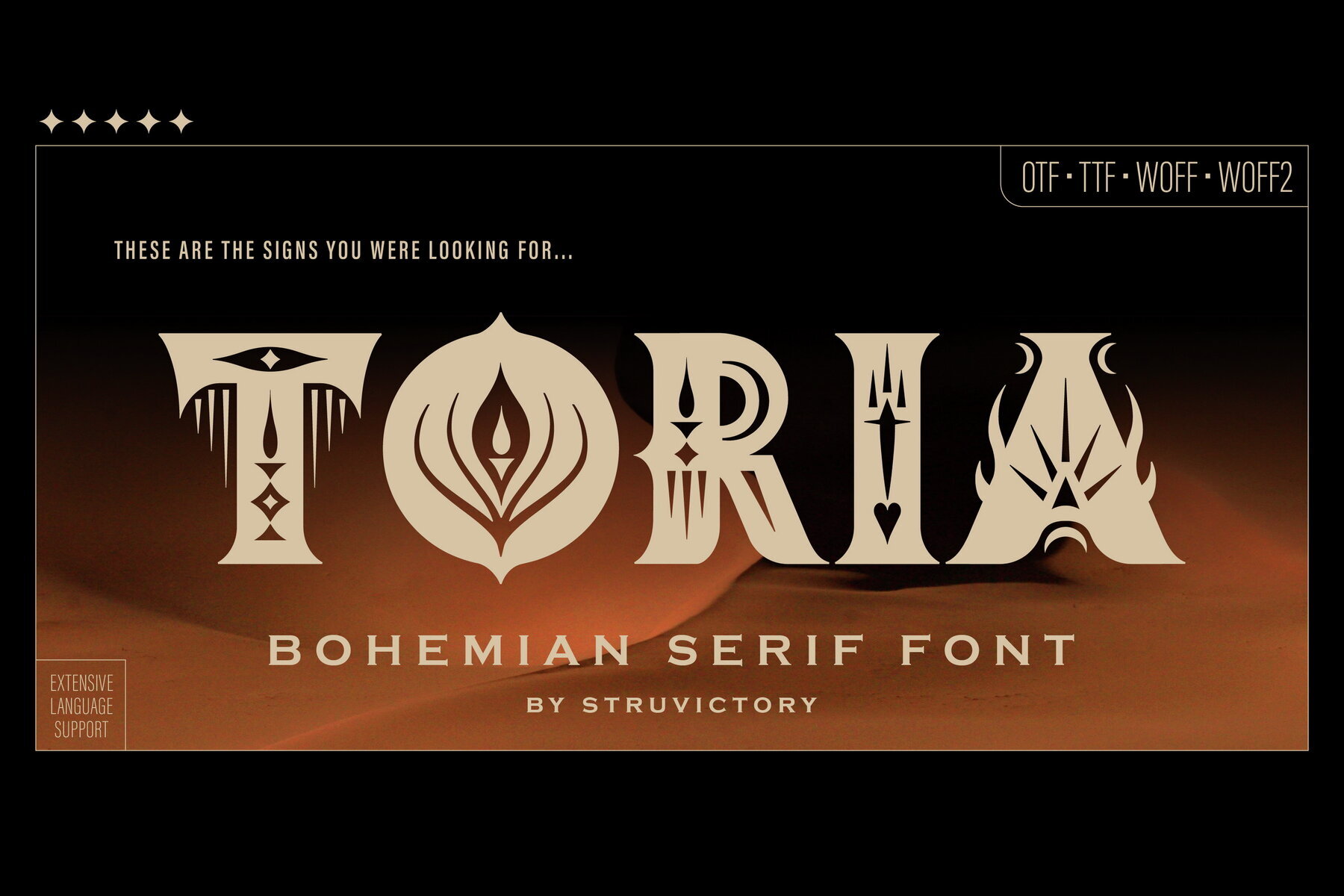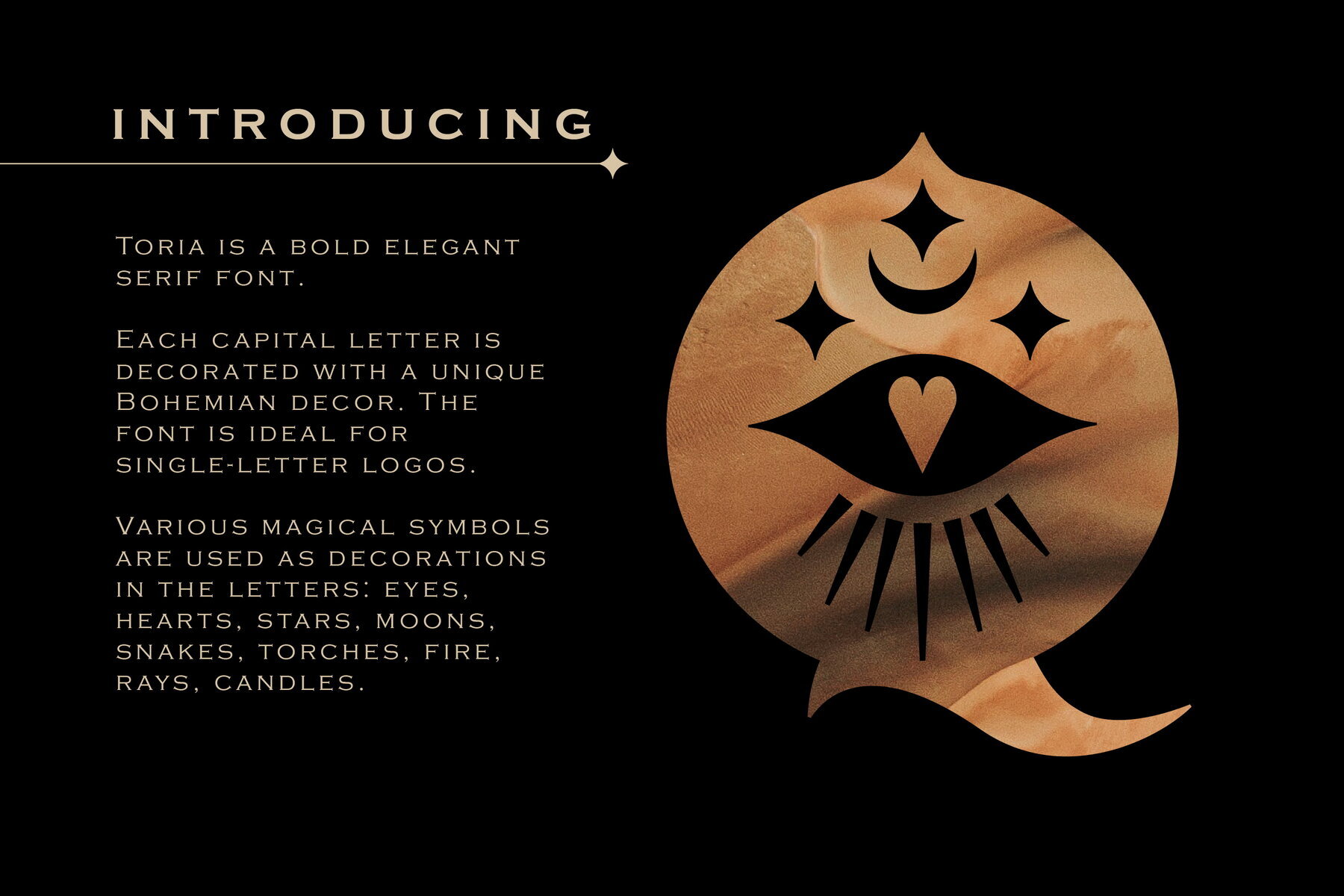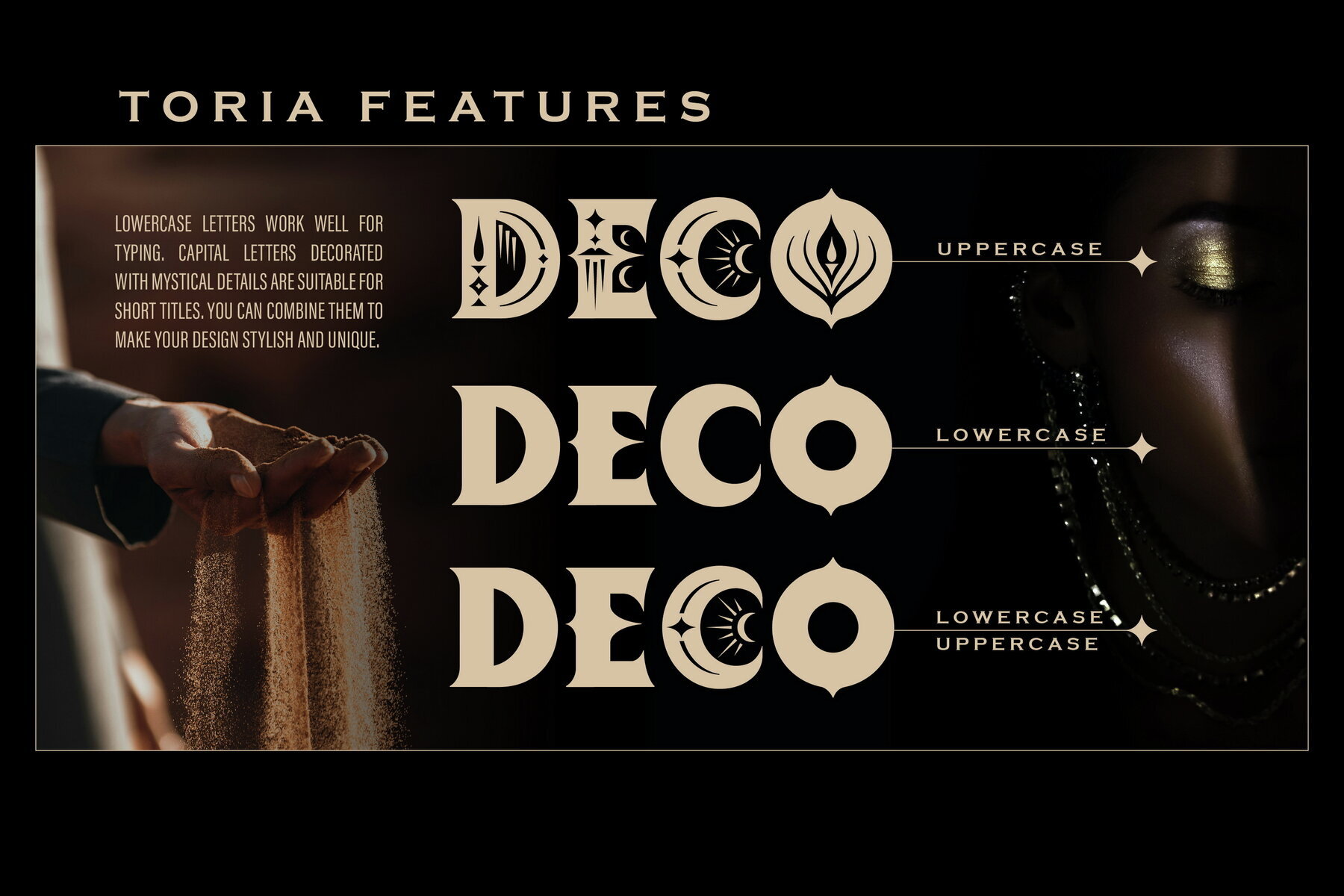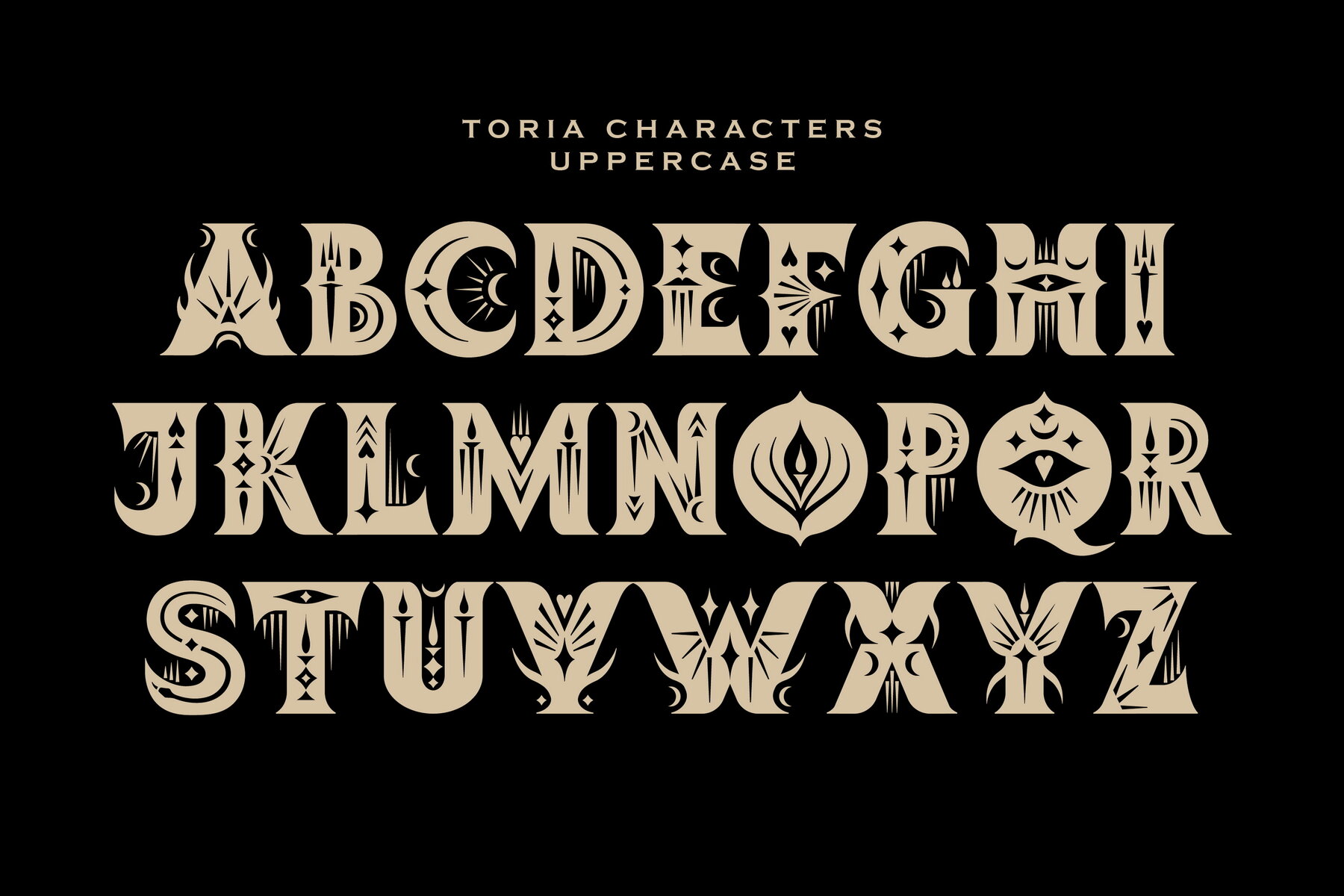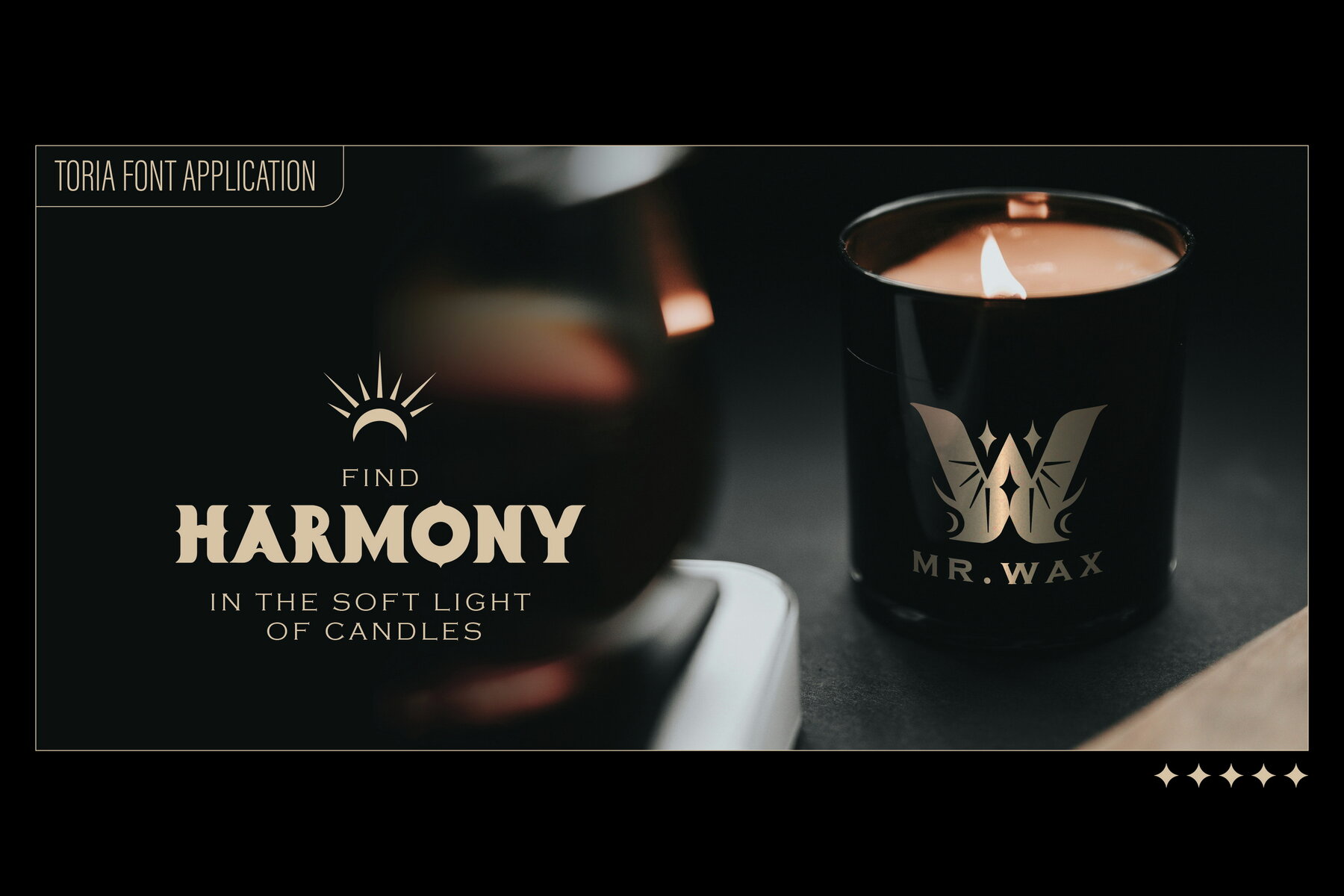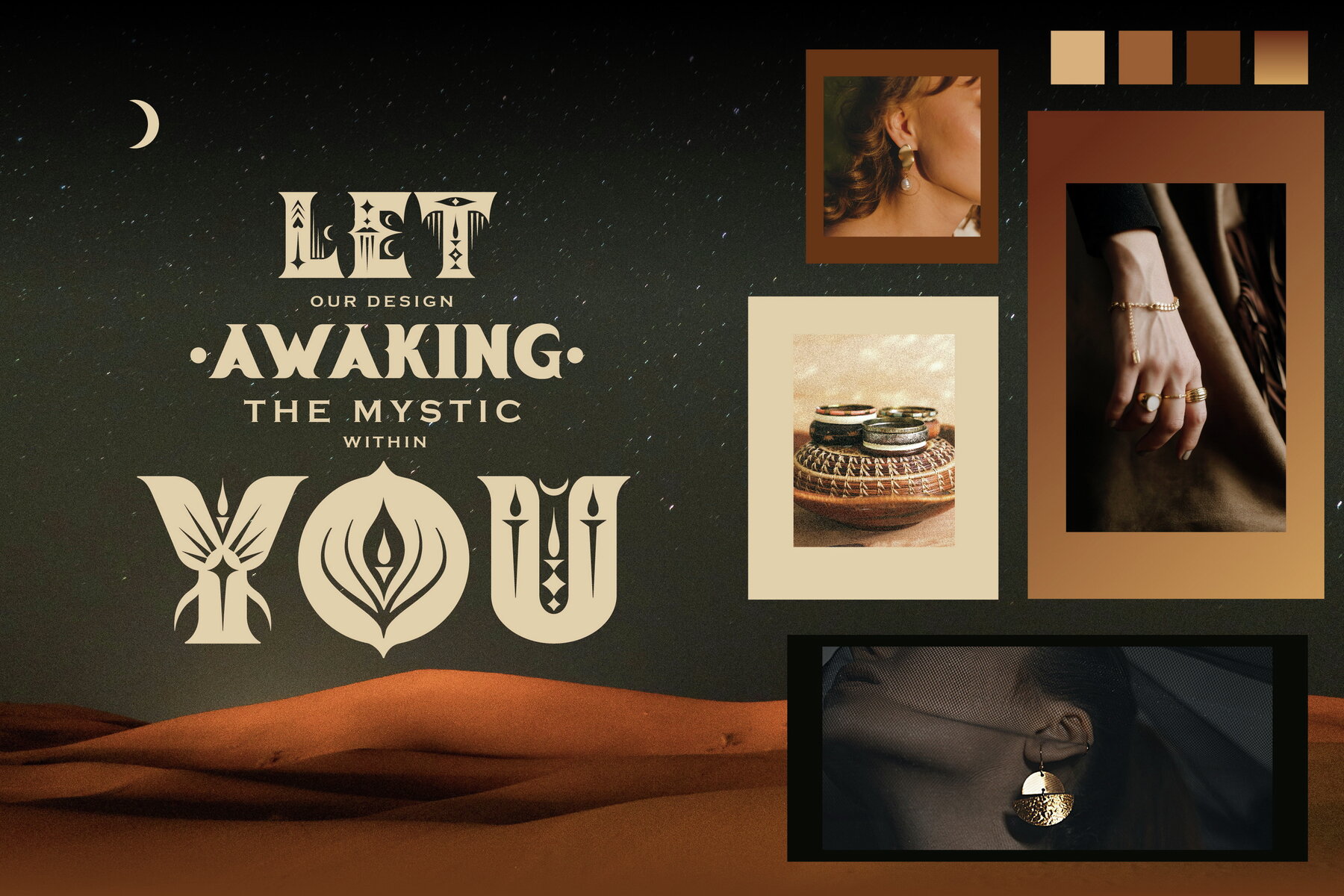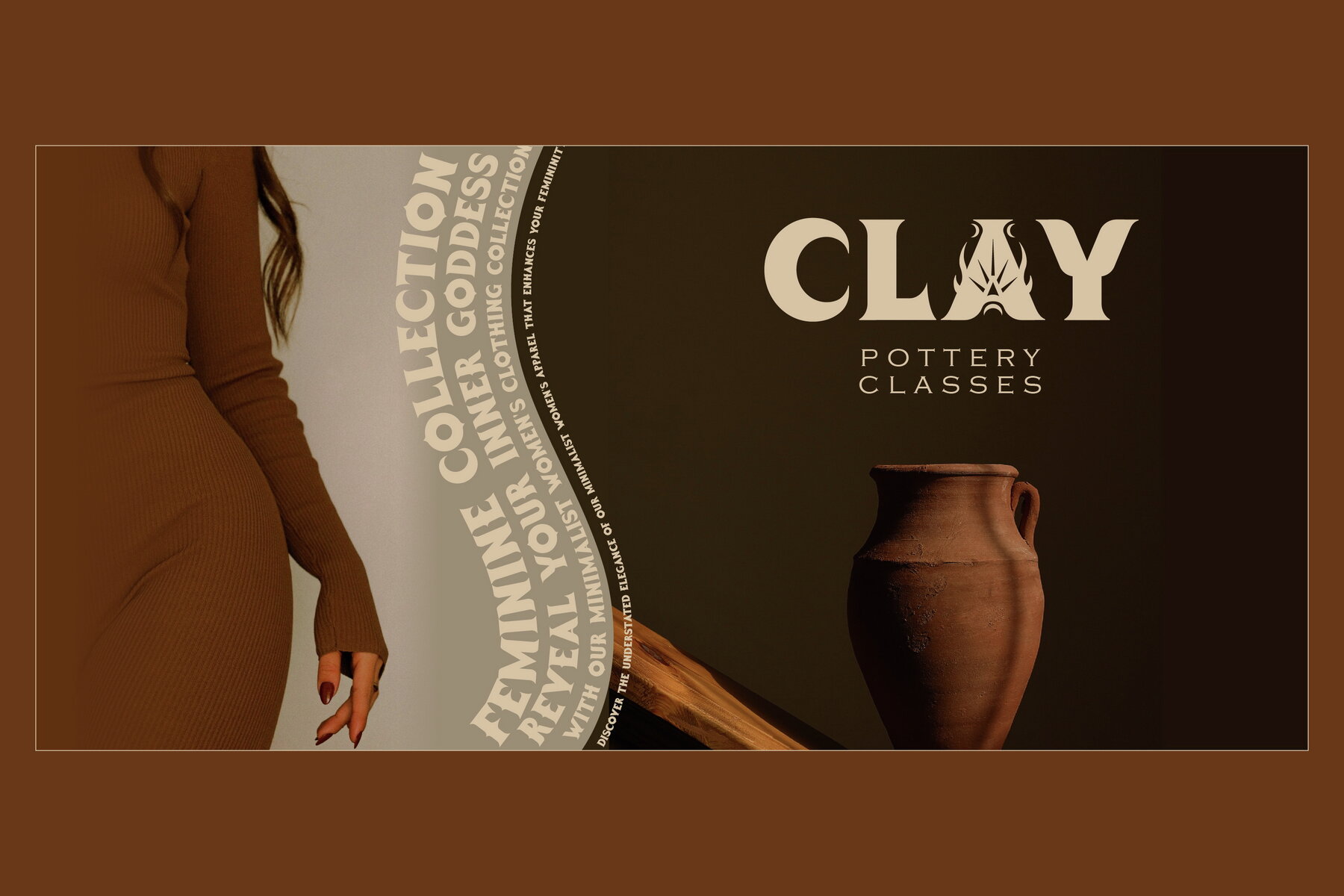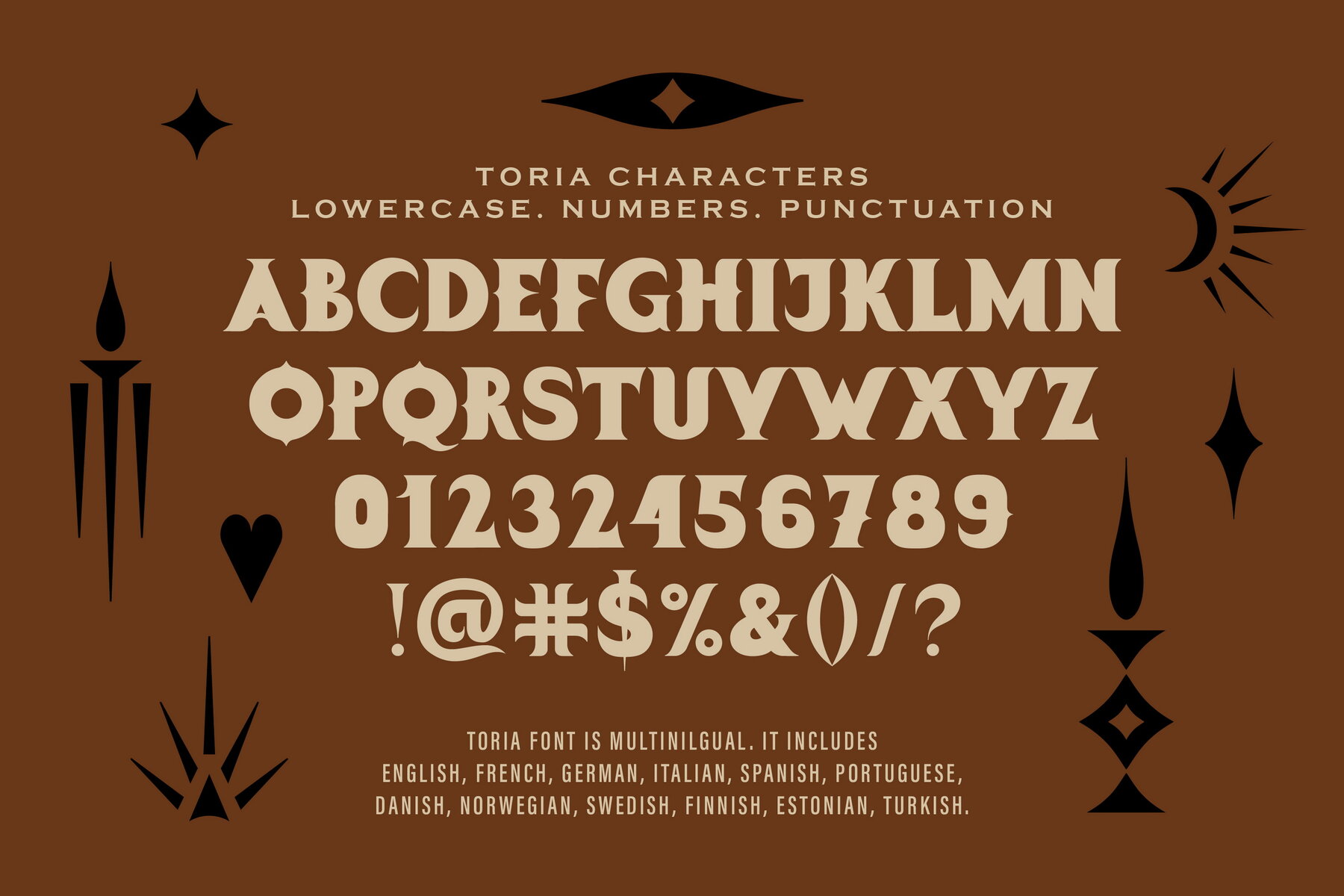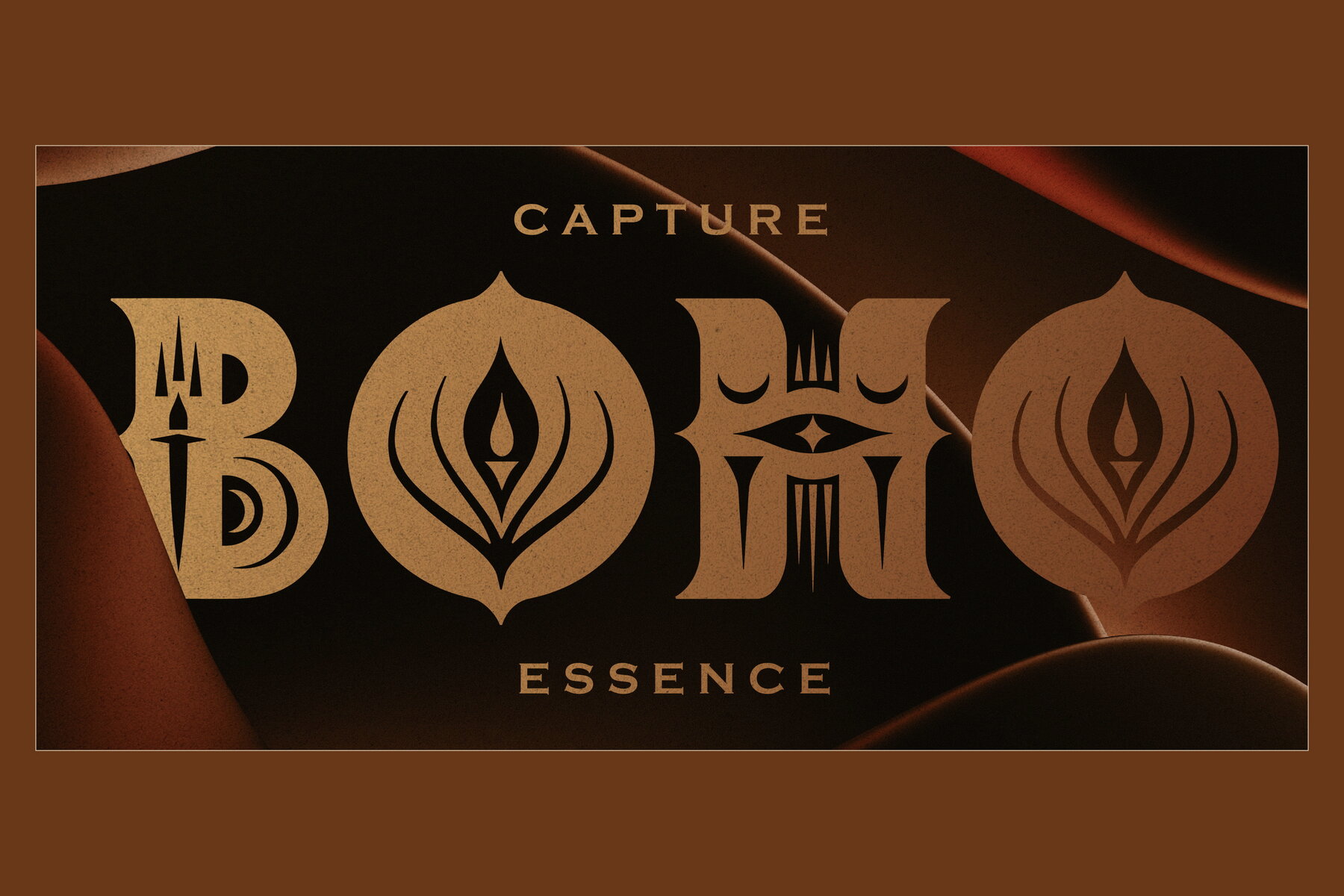
Toria Font
Toria Bohemian
Welcome to TORIA - a modern serif font that unveils mystical essence in every character. Adorned with symbols like the moon, candle, serpent, sun, rays, torch, and eye, these letters not only invite you on a journey into the realm of esotericism but also offer a unique opportunity to use them as a logo for your brand. Allow TORIA to be a source of inspiration and magic in each glyph, transforming your message into art.